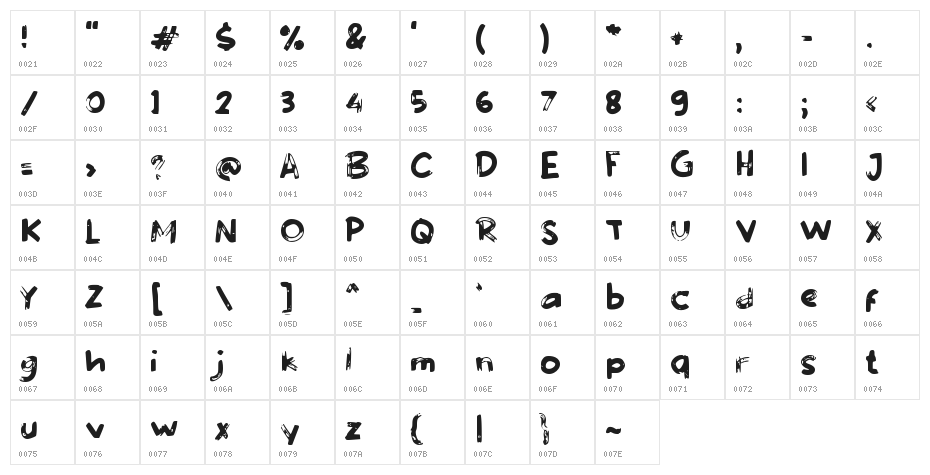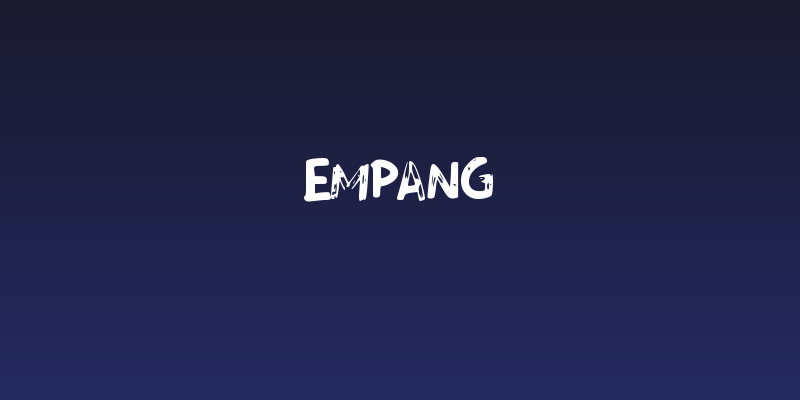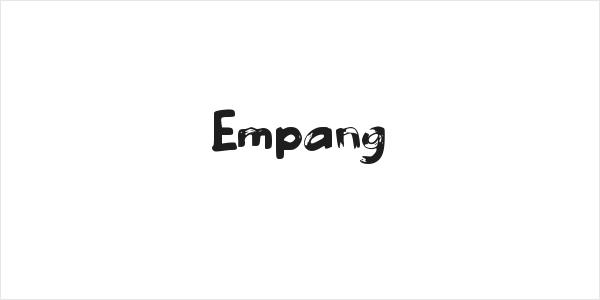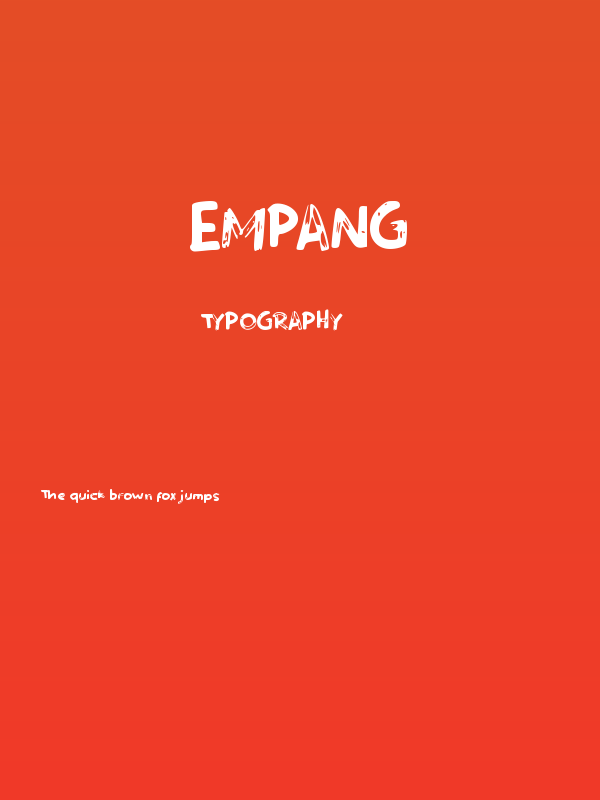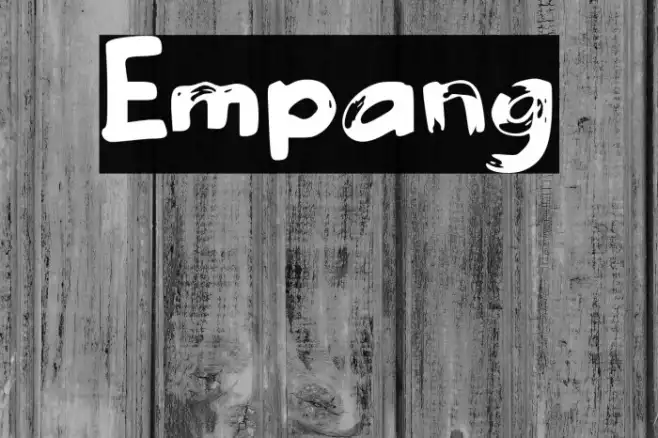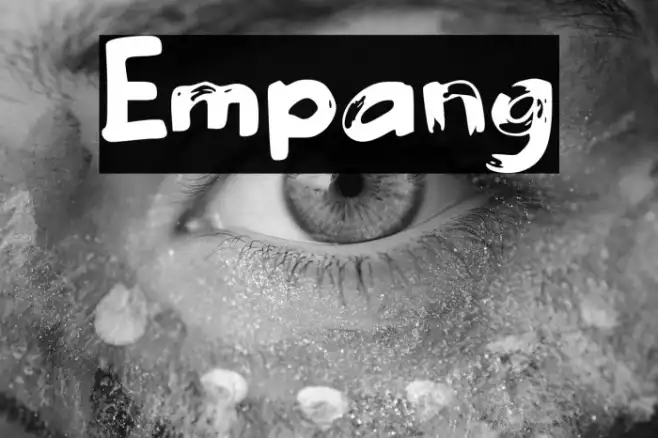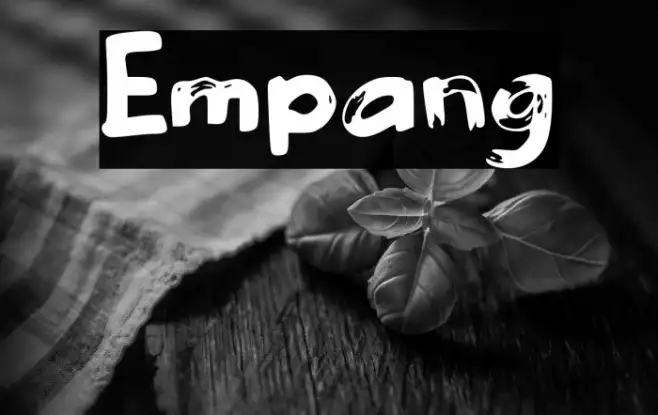
Empang Font
Empang Description
This font exhibits a bold and expressive style with a hand-drawn appearance. The characters are characterized by uneven strokes and a playful, artistic flair. Each letter has a unique texture, giving the font a dynamic and energetic feel. The uppercase and lowercase letters maintain a consistent style, while the numbers and special characters complement the overall design. The font's irregularities and brush-like strokes make it stand out, ideal for projects that require a creative and informal touch.
| Proposed Projects | Ideal for posters, album covers, children's books, and creative branding projects. |